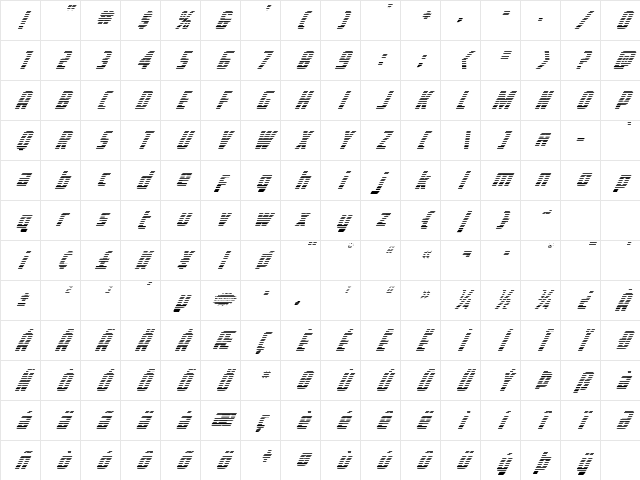
Voyage Fantastique Gradient Italic
Complete Voyage Fantastique Gradient Italic glyph index. Displaying only characters natively supported by Voyage Fantastique Gradient Italic font.
Design Context for Voyage Fantastique Gradient
Voyage Fantastique Gradient is a composed and adaptable typeface that performs quietly and consistently across a wide range of design contexts. The slanted form adds forward momentum and visual energy.
Pro Tip: Use Voyage Fantastique Gradient for emphasis, pull quotes, and subheadings where its slanted energy can add rhythm to the layout.